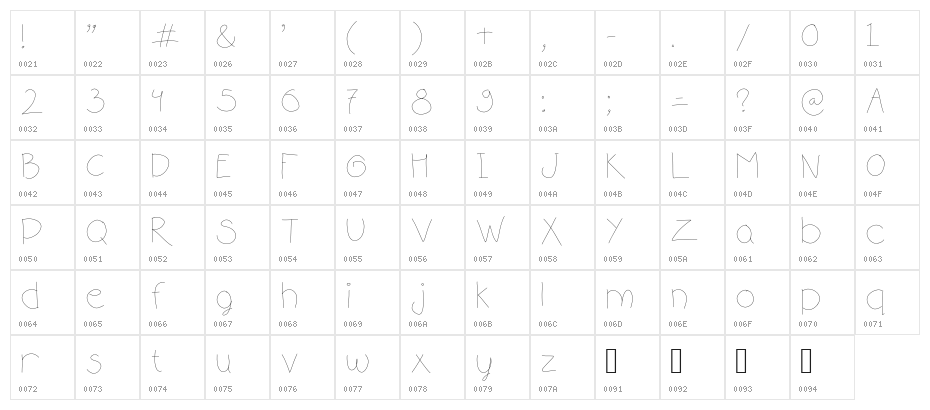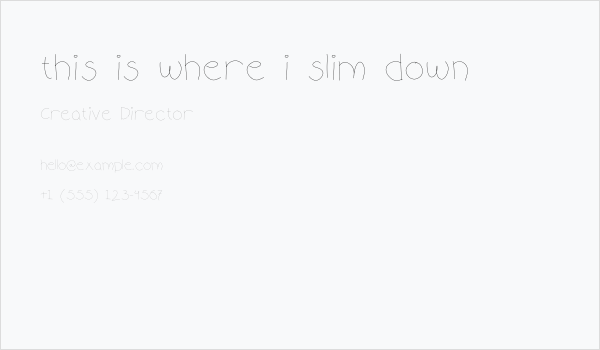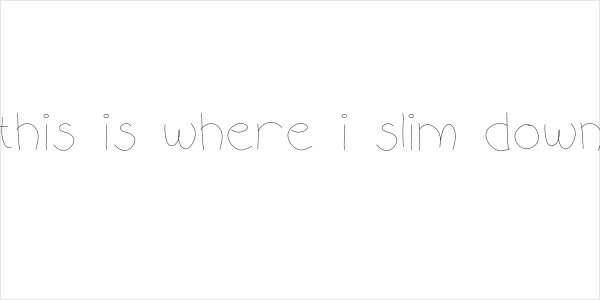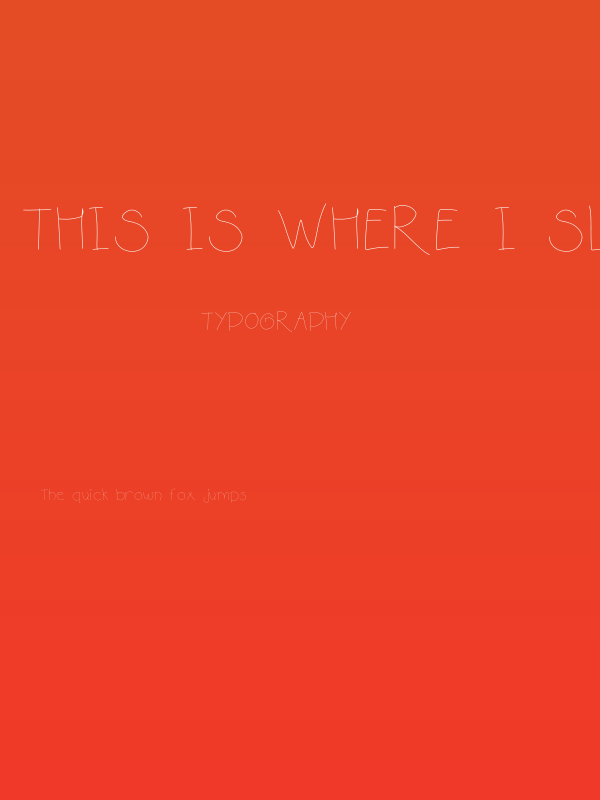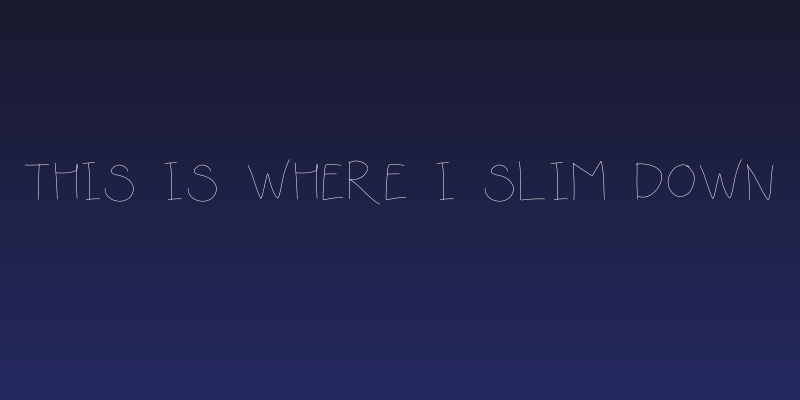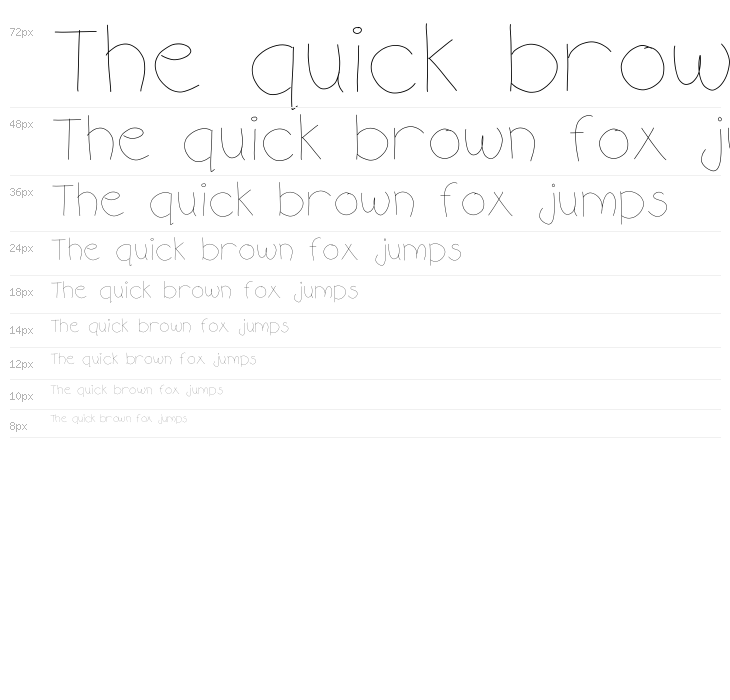
this is where i slim down Font
this is where i slim down Description
This font features a playful and whimsical design with thin, delicate strokes that give it a light and airy feel. The characters are slightly irregular, adding a hand-drawn, organic touch to the overall appearance. The uppercase letters are tall and slender, while the lowercase letters maintain a consistent height, creating a harmonious balance. Numbers and special characters follow the same thin, whimsical style, making them blend seamlessly with the alphabet. The font's unique personality makes it suitable for creative and informal projects, where a touch of individuality is desired.
| Use Case | Headlines, Creative projects |
| Proposed Projects | Ideal for greeting cards, children's books, creative posters, and playful branding. |